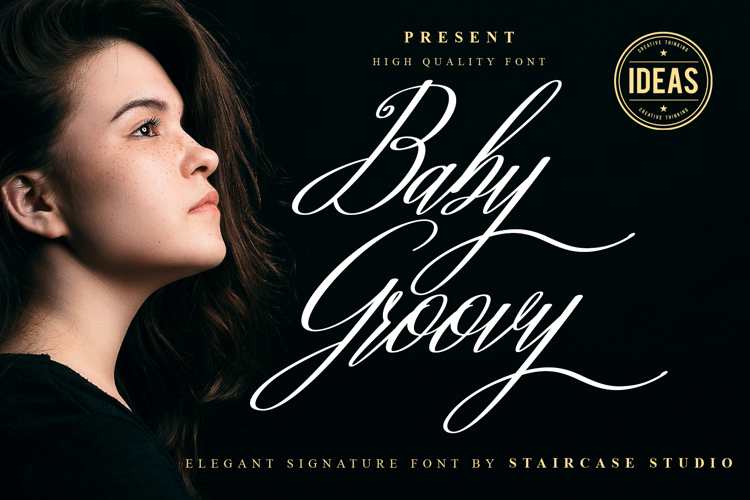
Baby Groovy Font
About Baby Groovy Font
Baby Groovy Elegant Signatue Font. A collection of letters and numbers suitable your projects also great for Logotype, Branding Design, Logo Design, Digital Lettering Arts, T-Shirt/Apparel, Poster, Magazine, Signs, Advertising Design, and any design needs.